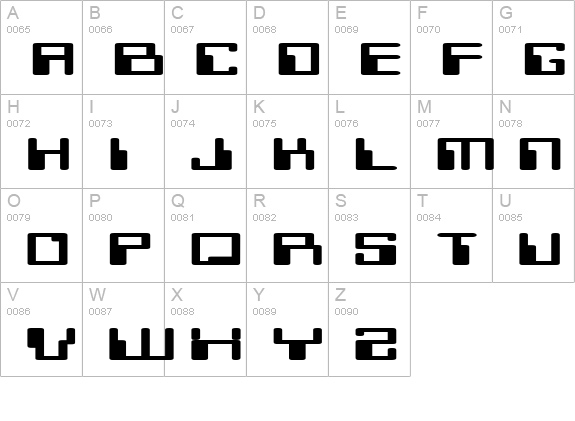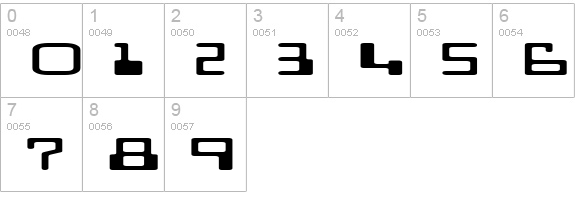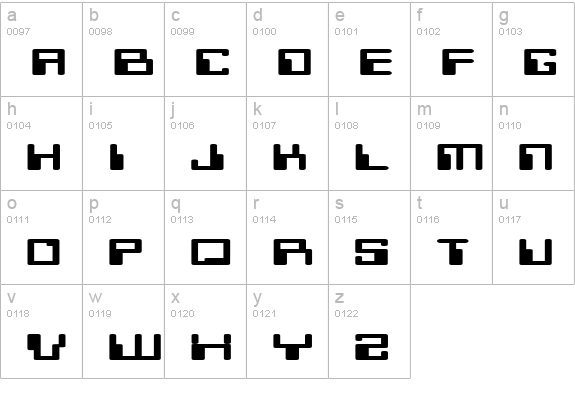
Micr Regular is the standard, neutral variant in the Micr typeface family \xE2\x80\x94 well suited to general body text, paragraphs, and standard typographic work.
Micr Regular font is a versatile and modern typeface that combines elegance with readability. Its clean lines and balanced proportions make it perfect for a wide range of design projects, from branding to editorial layouts. The font features a timeless appeal that will make your text stand out while maintaining a professional and polished look. Best of all, Micr Regular font is available for free download at FontsMarket.com. Whether you're a designer looking to add a new font to your collection or a business owner in need of a fresh look for your branding materials, this font is a fantastic choice. Don't miss out on the opportunity to enhance your projects with this stylish and sophisticated typeface. Download Micr Regular font today and take your designs to the next level.